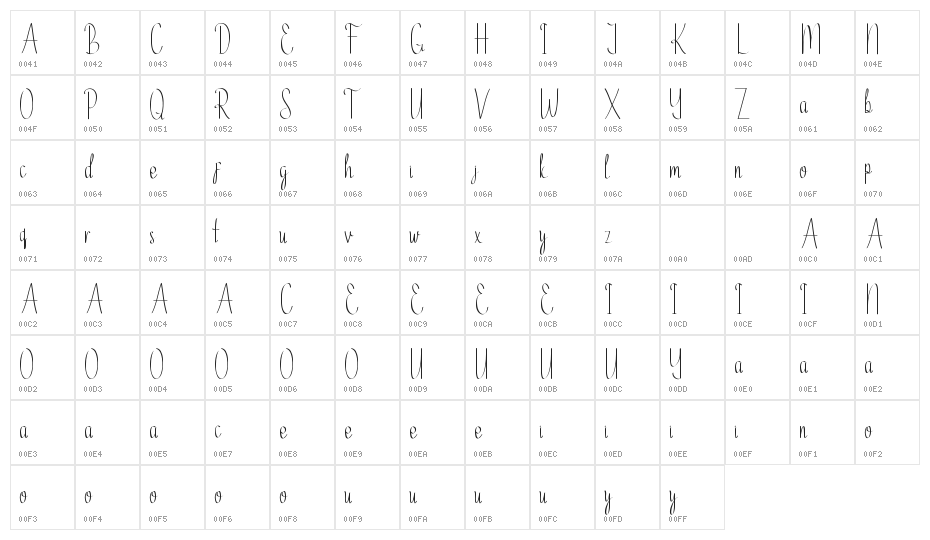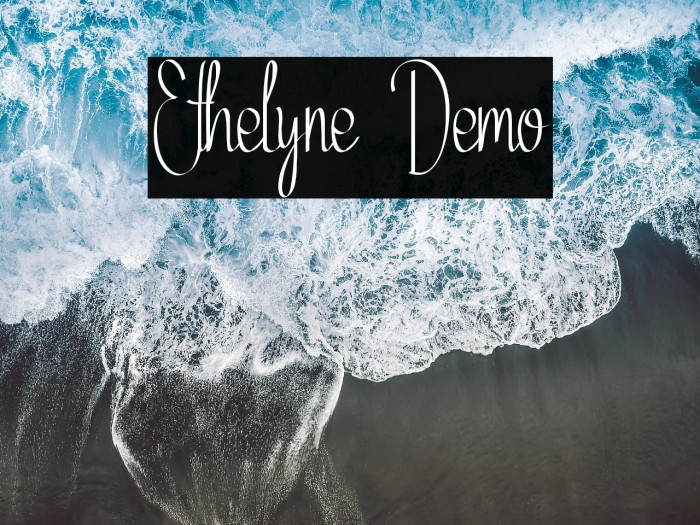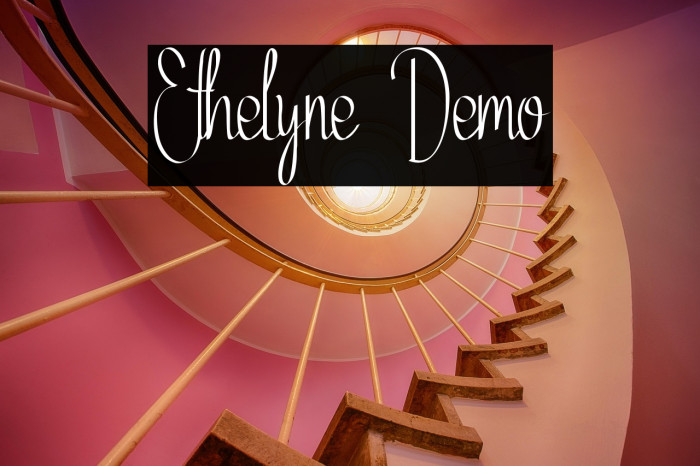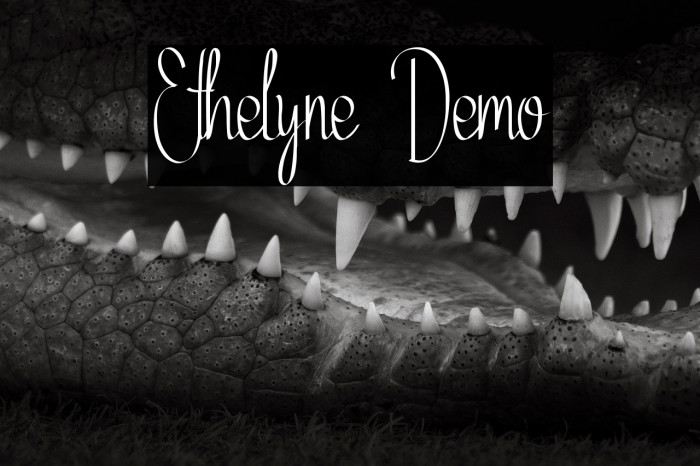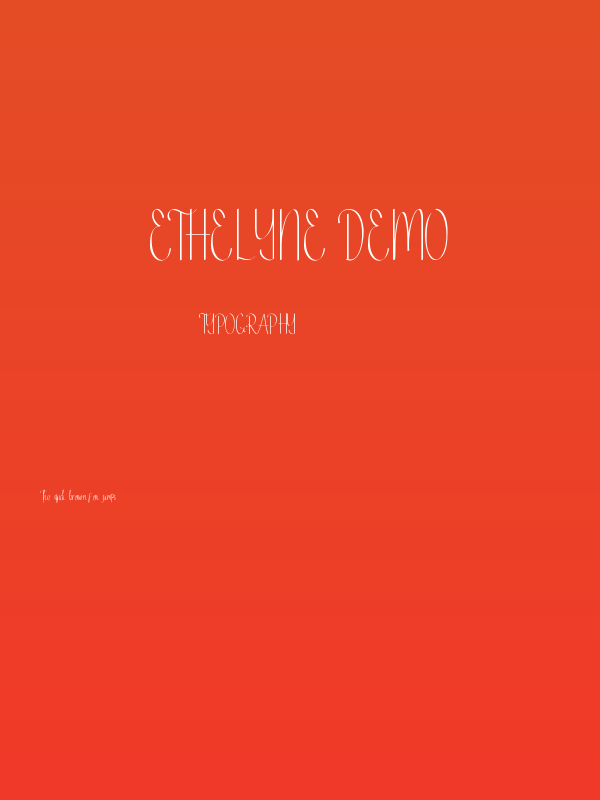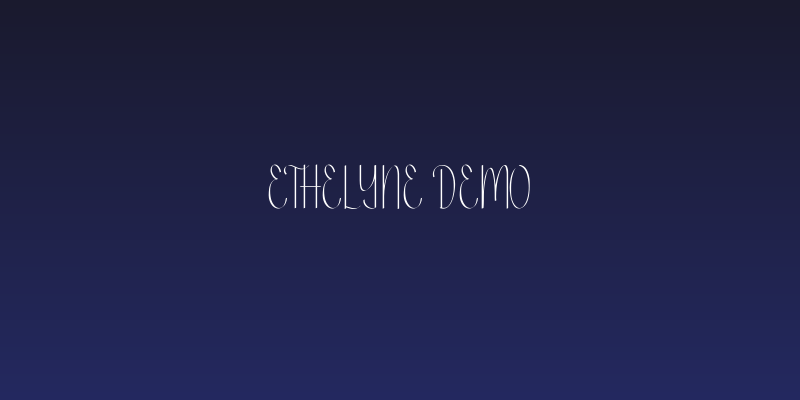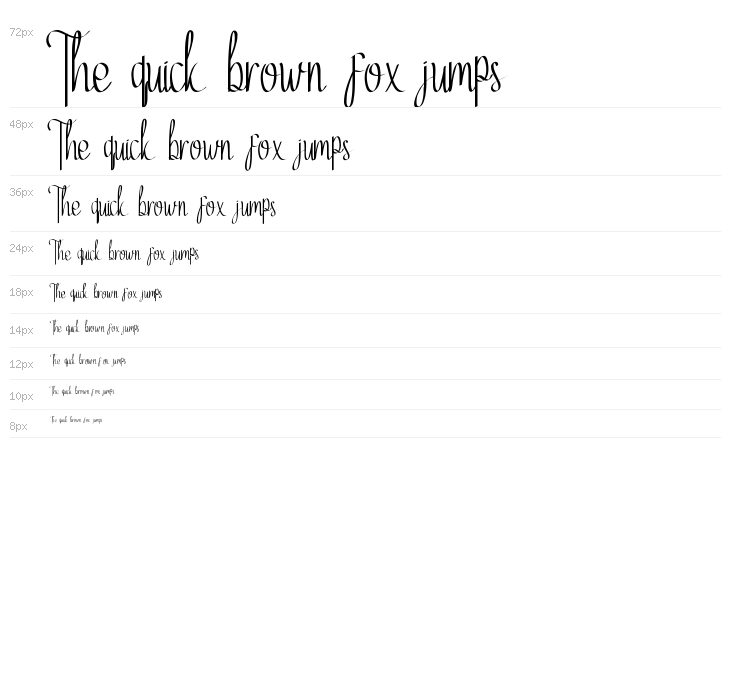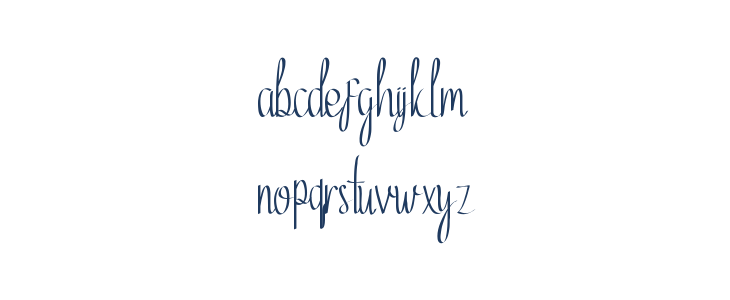
Ethelyne Demo Font
Ethelyne Demo Description
This font features an elegant and sophisticated design with tall, narrow characters and high contrast between thick and thin strokes. The uppercase letters are particularly elongated, giving a sense of height and grace. The lowercase letters maintain a consistent style, with flowing curves and a slightly whimsical touch. The overall appearance is both modern and classic, suitable for a variety of design applications. The font's unique style makes it stand out, while still being readable and versatile.
| Overall Style | Modern Classic |
| Proposed Projects | Ideal for wedding invitations, luxury branding, fashion magazines, and elegant packaging designs. |